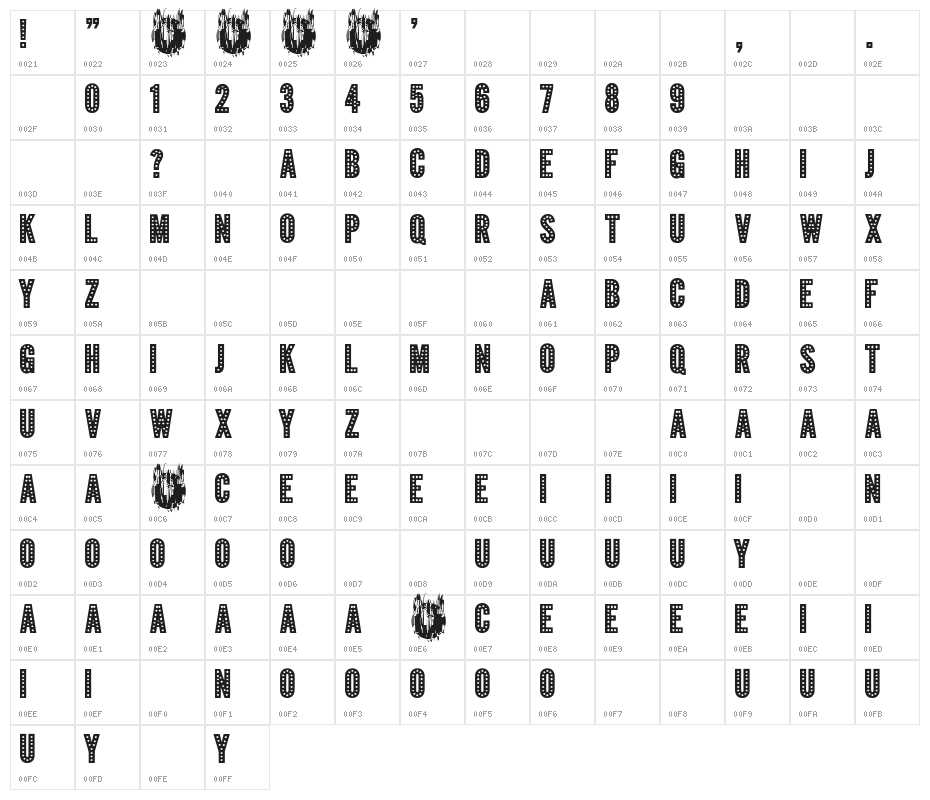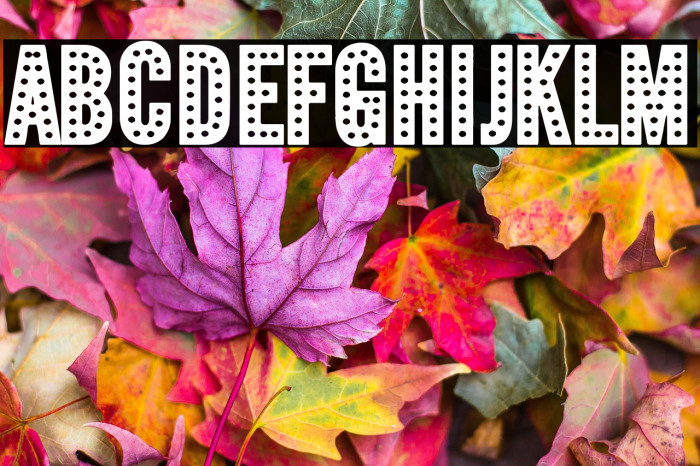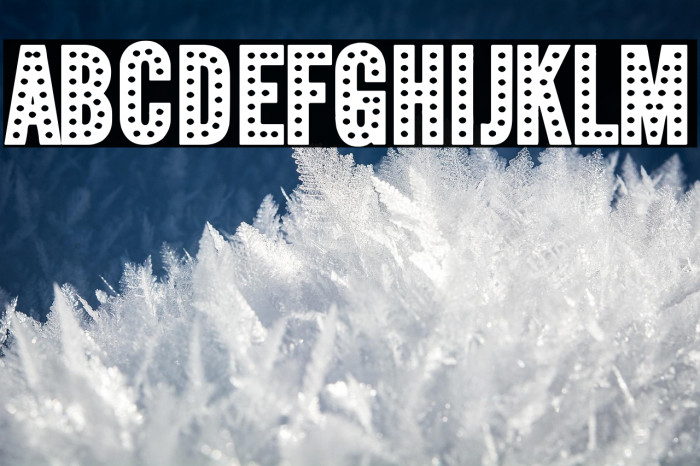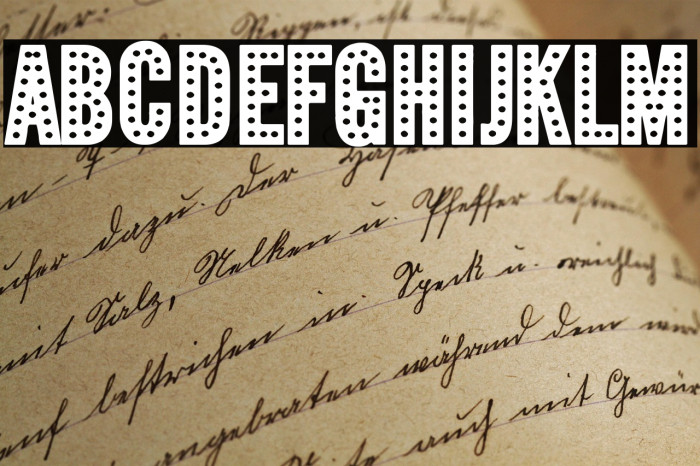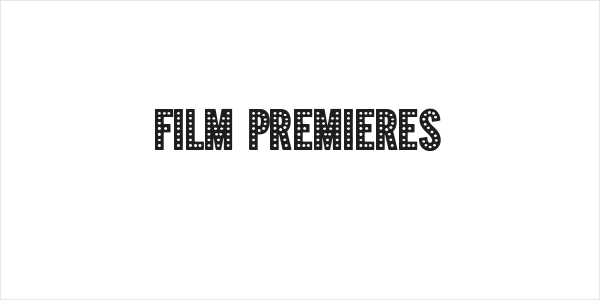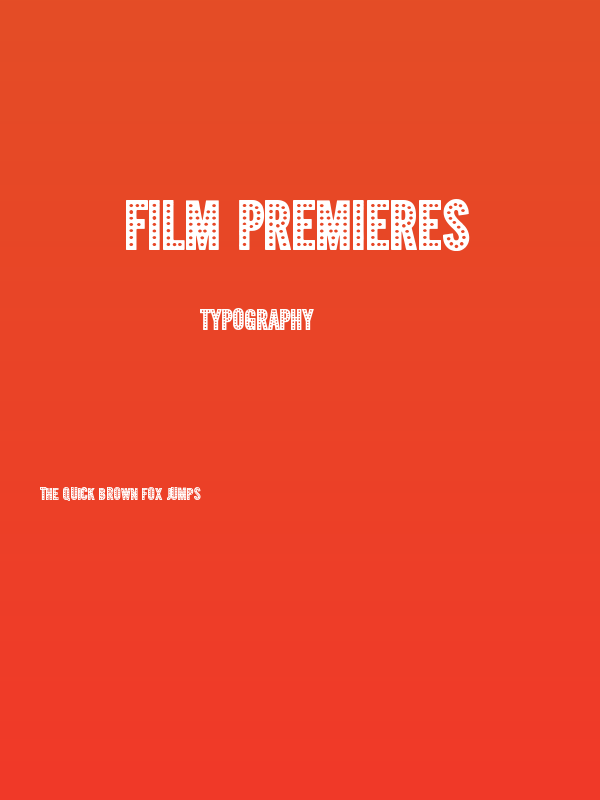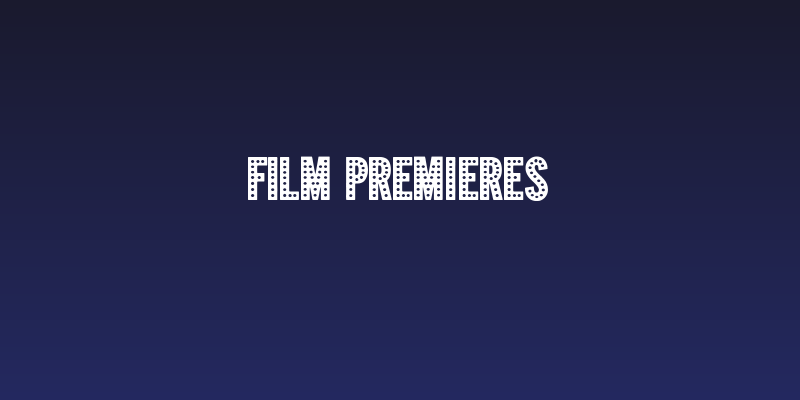
Film Premieres Font
Film Premieres Description
This font features bold, uppercase letters with a distinctive dotted pattern reminiscent of marquee lights. The characters are evenly spaced and maintain a consistent thickness, giving them a strong, impactful presence. The design is playful yet sophisticated, making it suitable for eye-catching displays. The numbers and punctuation marks follow the same dotted style, ensuring visual consistency across all characters. This font is ideal for projects that require a vintage or theatrical flair, such as posters, signage, or branding for entertainment-related events.
| Proposed Projects | Ideal for movie posters, theater signage, event branding, and retro-themed designs. |